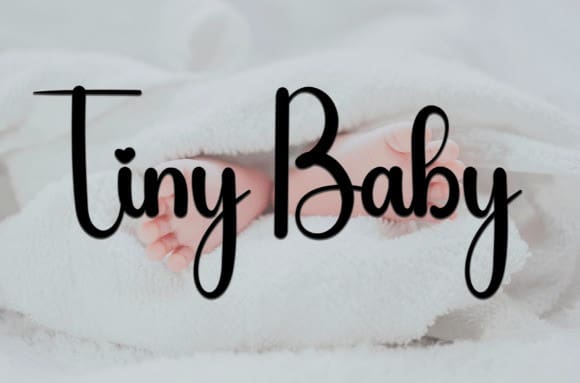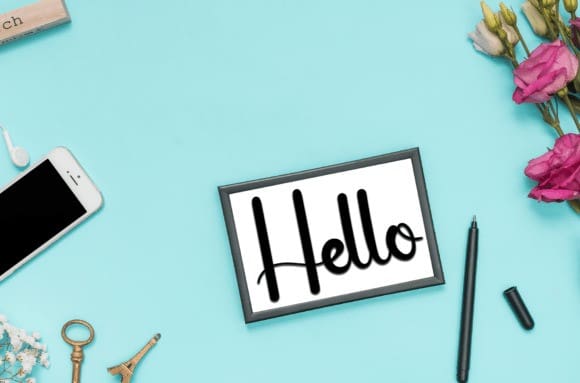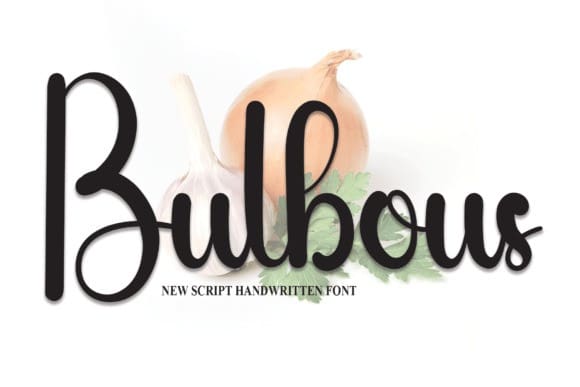
Bulbous Script Font
Bulbous Script Font is a friendly handwritten font, carefully designed to become a true favorite. This font will be a great addition to your font library, as it will make all your creative projects come alive!